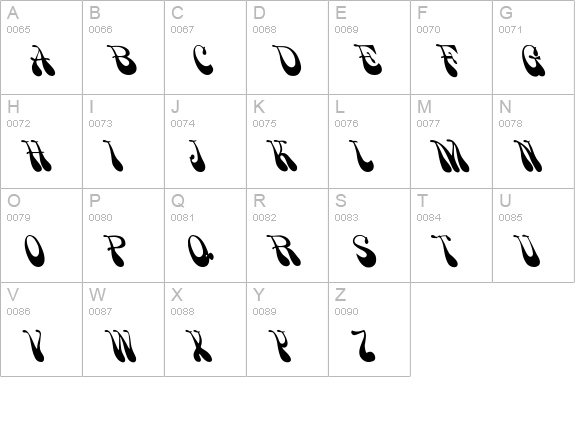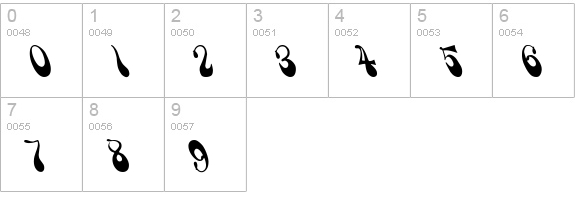
Step into a world of vibrant colors and whimsical shapes with the Psychedelic font. This unique typeface is a true celebration of creativity, drawing inspiration from the psychedelic art movement of the 1960s. Its playful curves and bold strokes are sure to make a statement in any design project. Whether you're working on a poster, album cover, or logo, the Psychedelic font will add a touch of retro charm and psychedelic flair. And the best part? It's completely free to download at FontsMarket.com. So go ahead, unleash your inner artist and let the Psychedelic font take your designs to a whole new level.